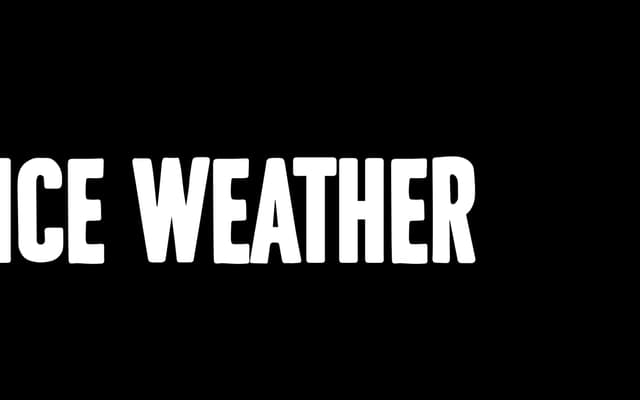
Nice Weather
A bold condensed display face with fully rounded edges and a hand-rendered character, priced accessibly at $25.
Rounded terminals and condensed proportions give this face a loose, approachable quality that sits apart from more rigid display types. The hand-rendered feeling adds personality without tipping into illegibility, making it suited to branding, posters and packaging where a warmer voice is needed. A straightforward single-weight offering at an entry-level price point.
Bold, condensed and rounded, with a hand-rendered quality that places it firmly in the display category. The rounded terminals and condensed proportions make it unsuitable for text use.